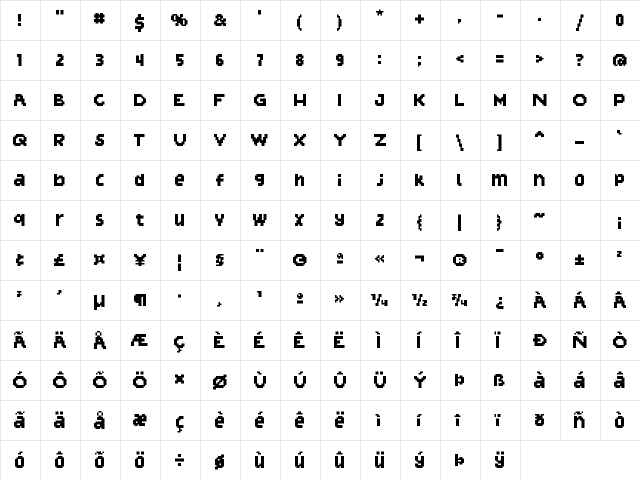
LycheeSoda Medium
Design Context for LycheeSoda Typeface
LycheeSoda takes a measured approach to typography — its balanced proportions and neutral character make it a reliable workhorse for both digital and print work.
Pro Tip: Use LycheeSoda in both headline and body roles to test its range before committing to a single application.